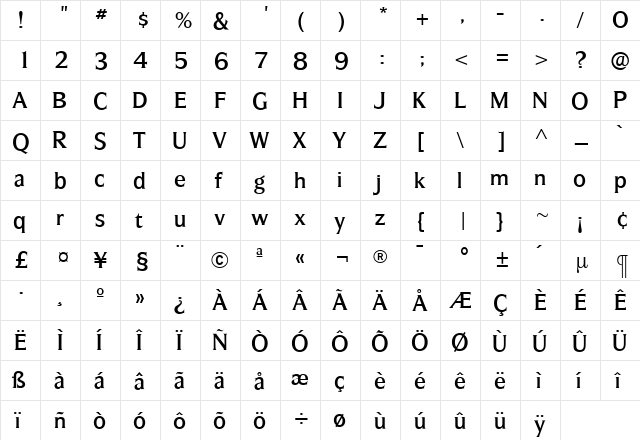
SilveradoMedium Roman Font Preview
SilveradoMedium Roman
Design Context for SilveradoMedium Typeface
SilveradoMedium takes a measured approach to typography — its balanced proportions and neutral character make it a reliable workhorse for both digital and print work.